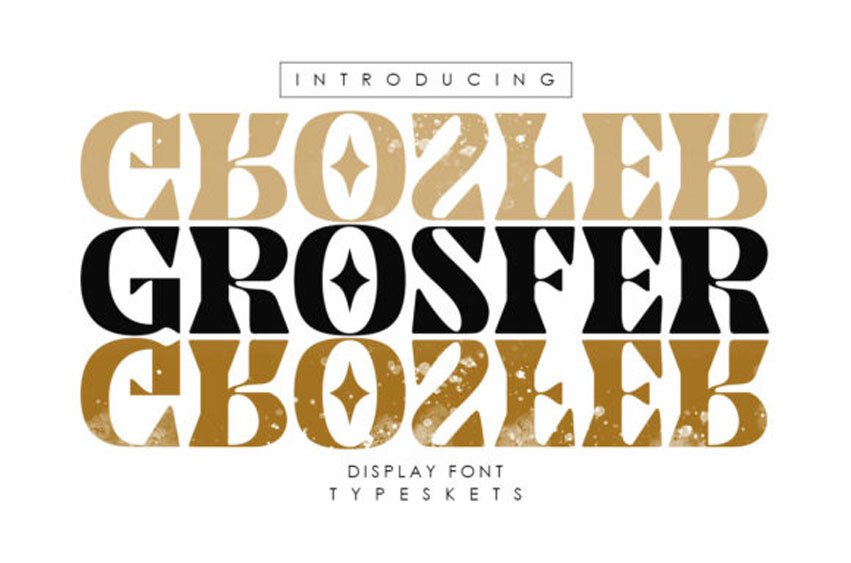
Grosfer Font is a cool, bold and thick lettered display font.
This font reads as strong, confident, and dynamic and can add a fierce character to your designs.